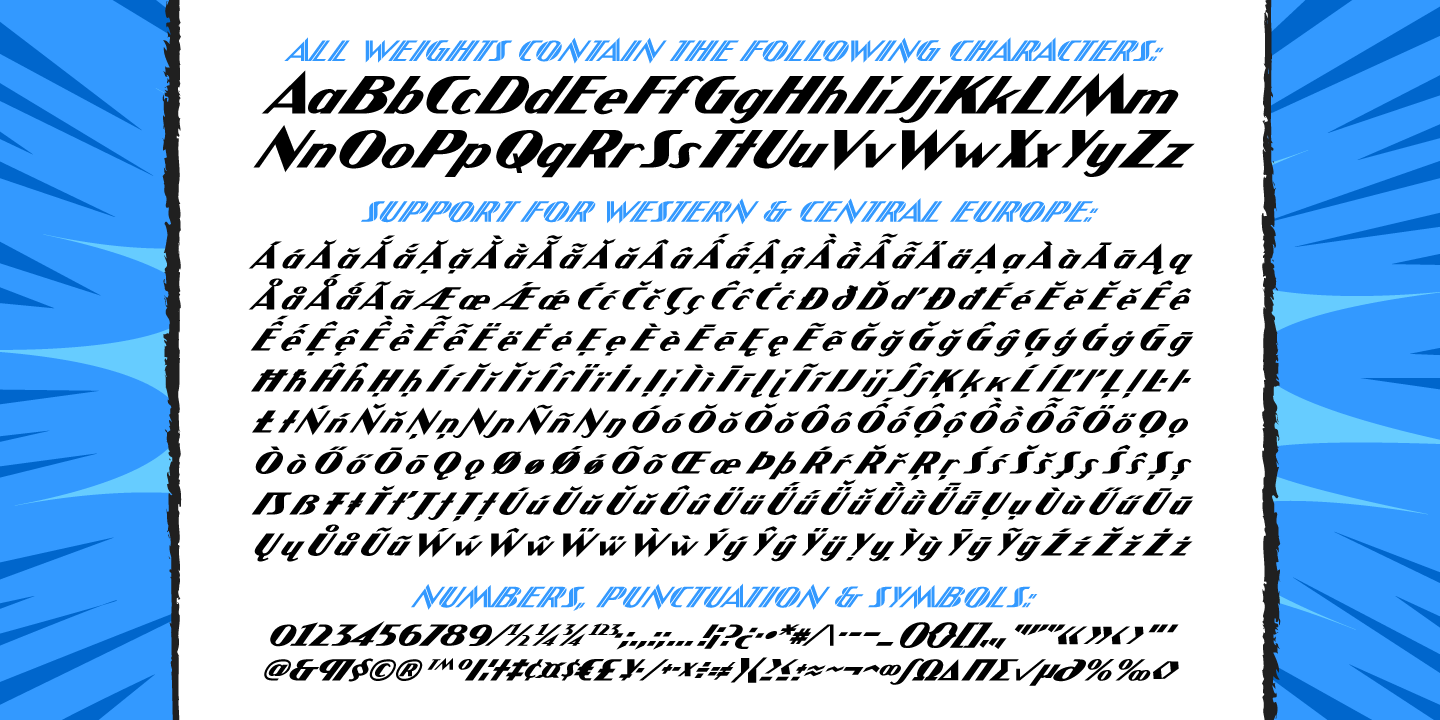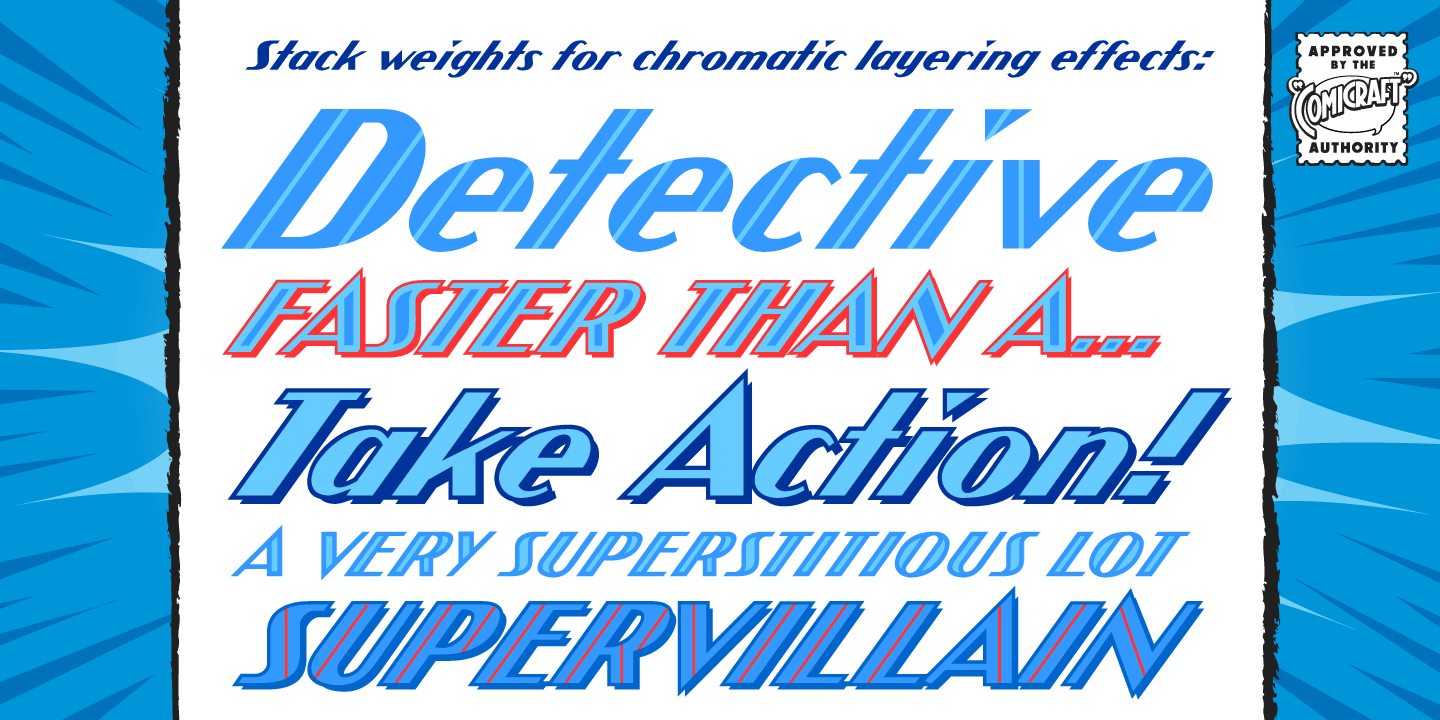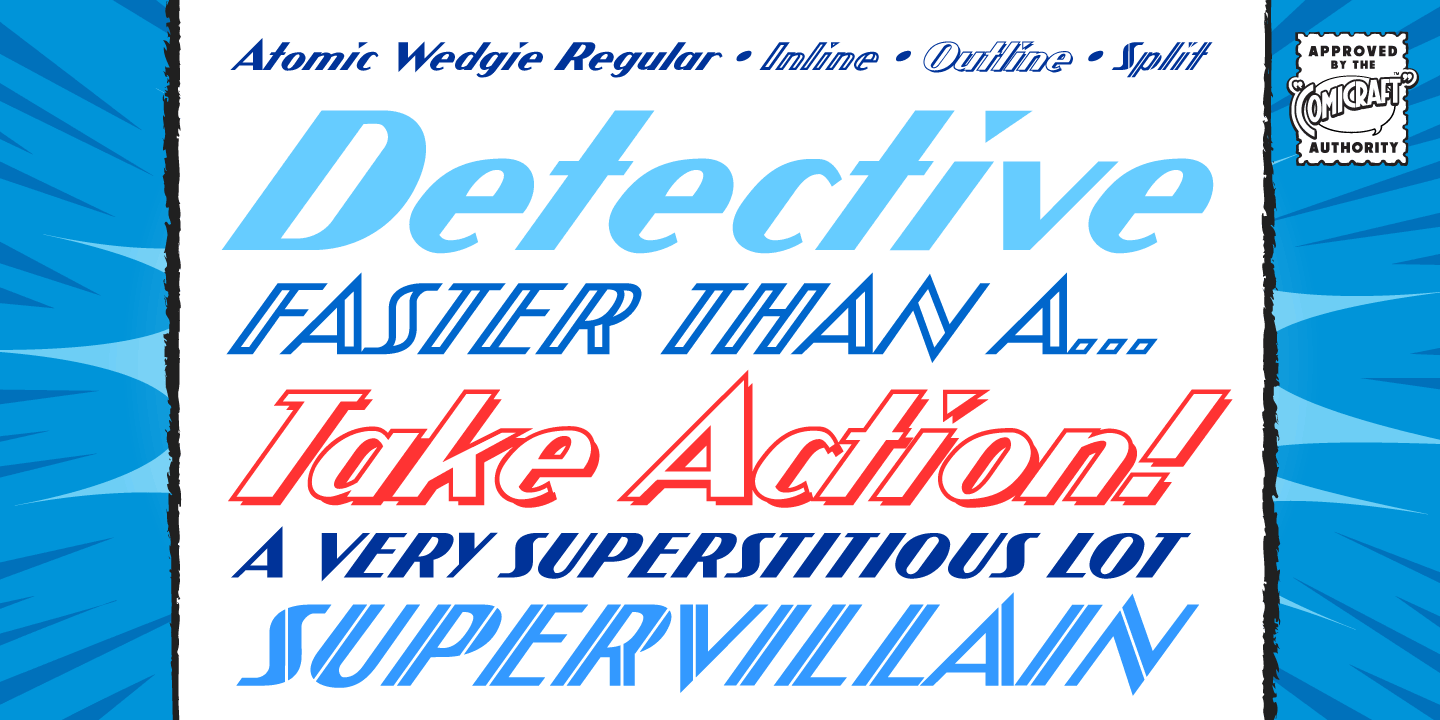
Atomic Wedgie
Font Family by Comicraft Fonts
Tighten up your capes, pull those cowls over your eyes and hoist your underpants over your trousers as far as they will go! Silver Age super heroes know that Men of Action can never look foolish fighting crime in their pajamas and neither will you with the help of this crack-kerning offering.